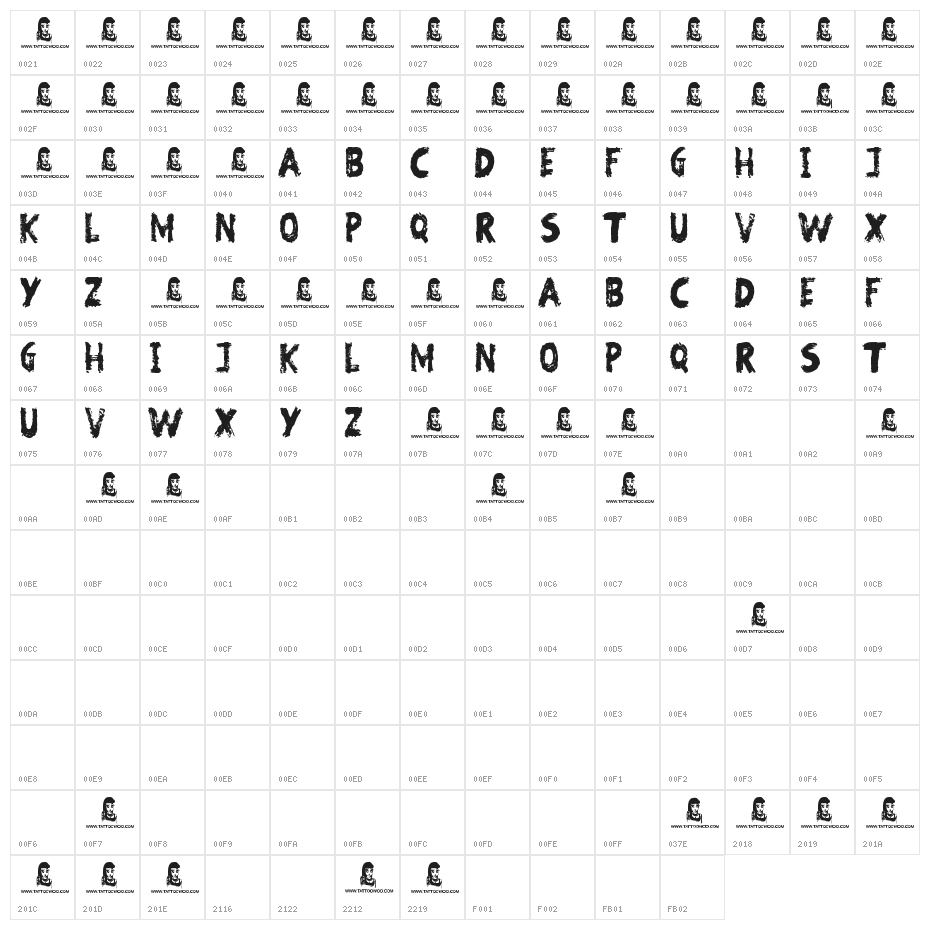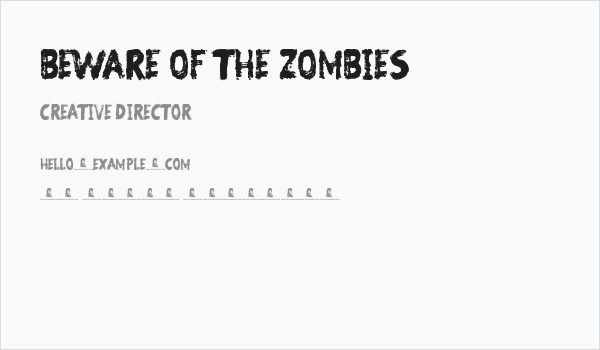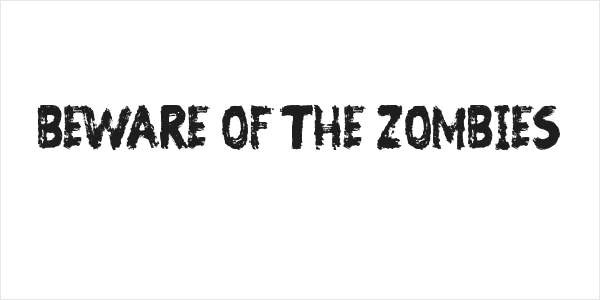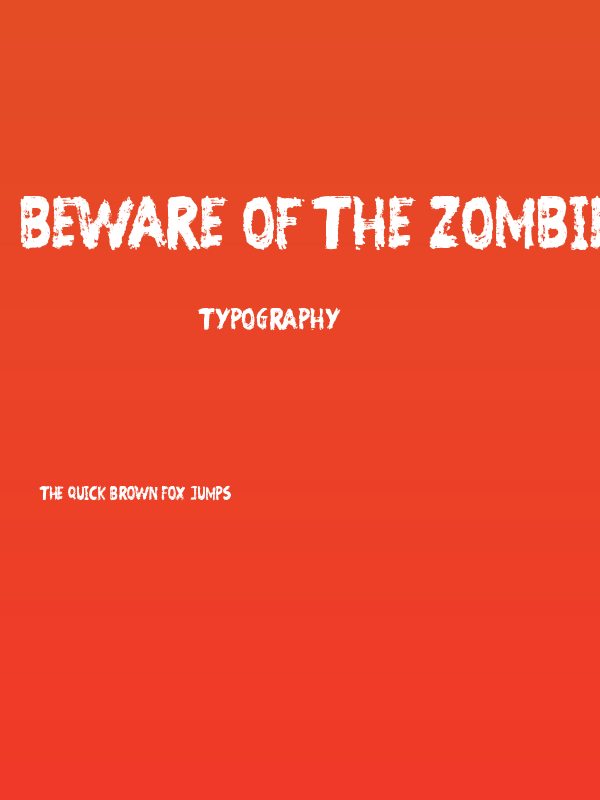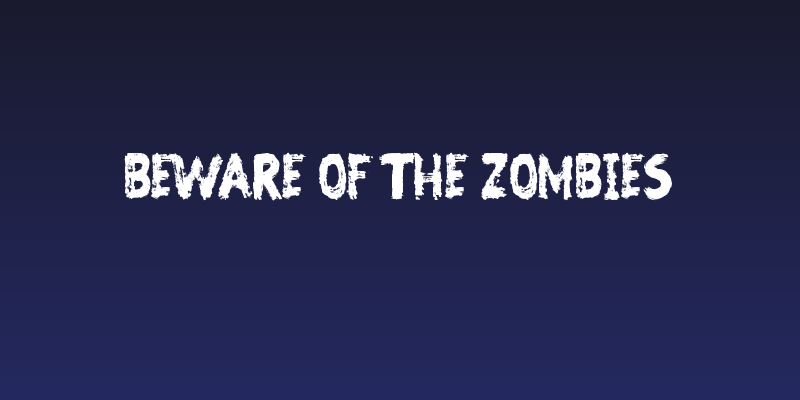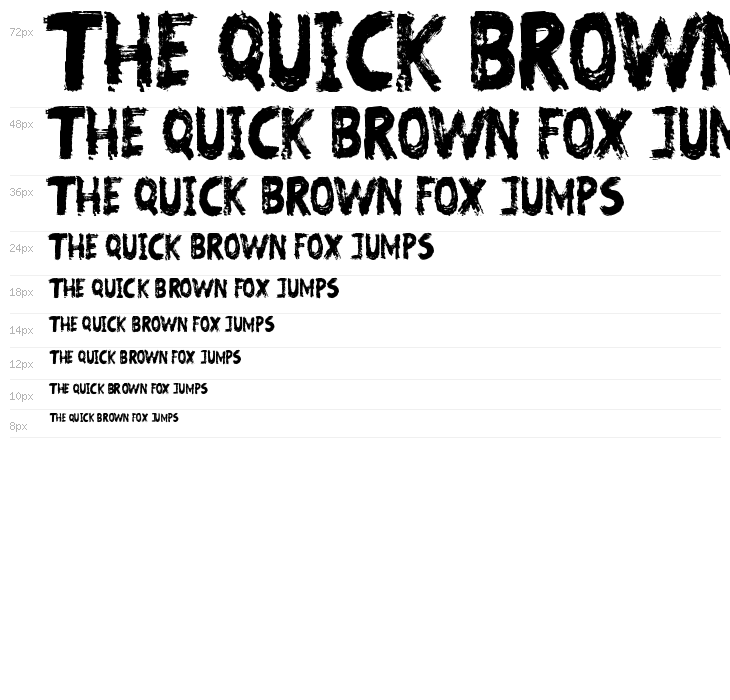
Beware of the Zombies Font
Beware of the Zombies Description
This font features a distressed, grunge style that evokes a sense of decay and chaos. The characters are bold and rough, with uneven edges and a textured appearance that mimics the look of worn or eroded surfaces. This design choice gives the font a dynamic and edgy feel, making it suitable for themes related to horror, apocalypse, or anything that requires a gritty aesthetic. The uppercase letters are prominent and maintain a consistent height, while the overall structure of each character is slightly irregular, enhancing the chaotic vibe.
| Overall Style | Grunge, Distressed |
| Use Case | Headlines, Posters, Logos |
| Proposed Projects | Ideal for horror movie posters, Halloween event flyers, video game titles, or any project needing a gritty, apocalyptic theme. |